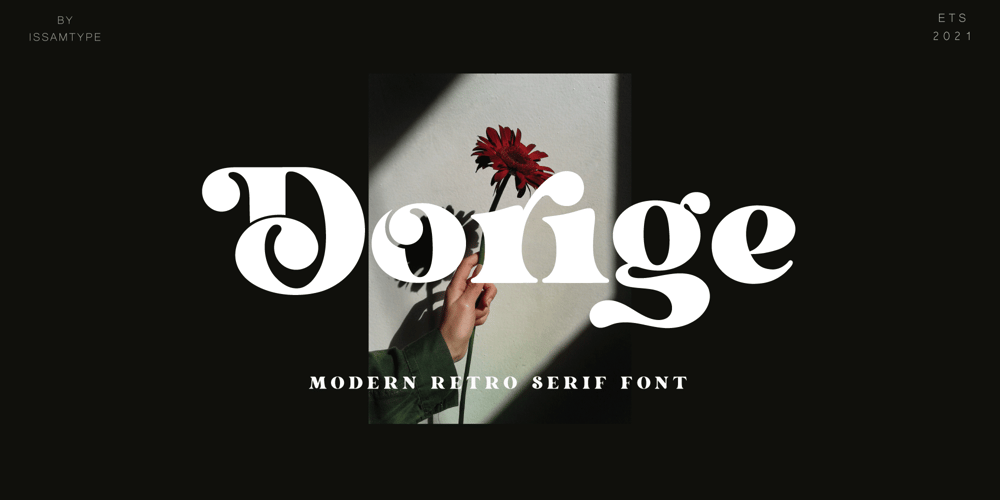
Dorige Font Family was designed by Issam Boufelja and published by Issam Type. Dorige contains 4 styles and family package options. Dorige is a modern retro serif typeface for branding, logo design and retro designs, This font comes with joining ligatures that give it a fancy and unique style.Dorige typeface comes with regular, italic, bold and bold italic font styles. Uppercase & lowercase letters, numbers, punctuation, ligatures, alternatesMultilingual support.If you have any questions, please feel free to get in touch.Thank you